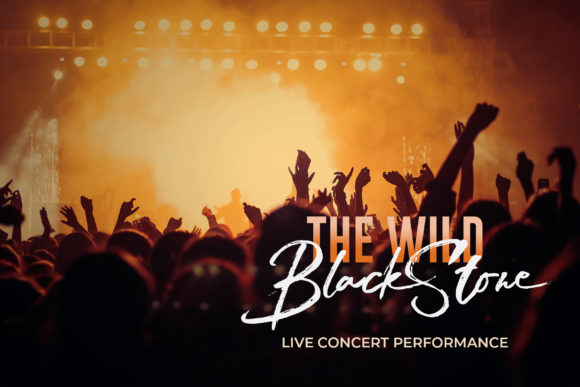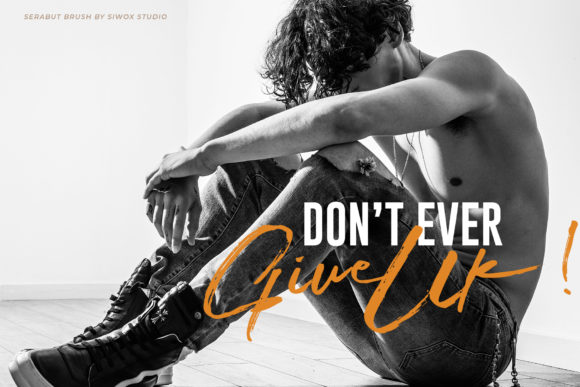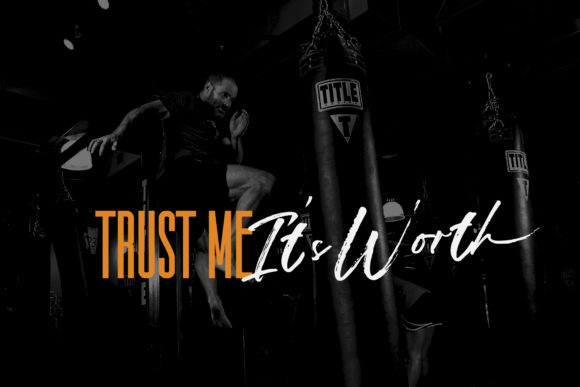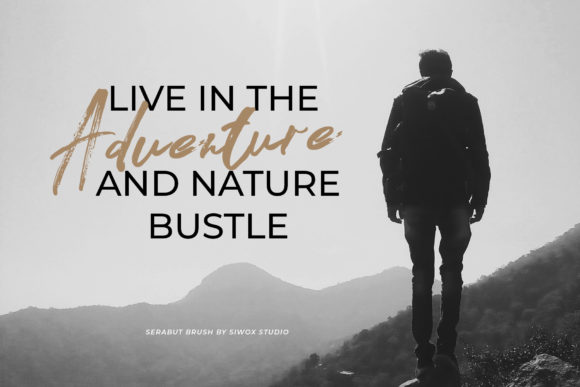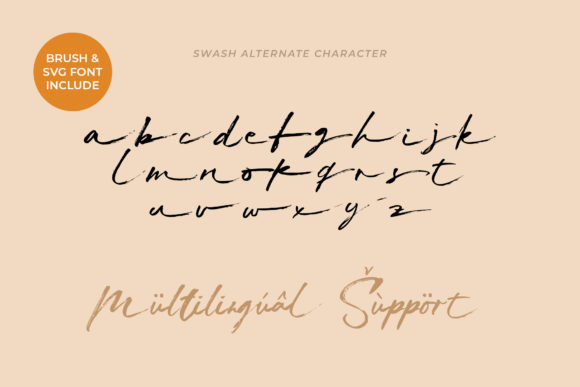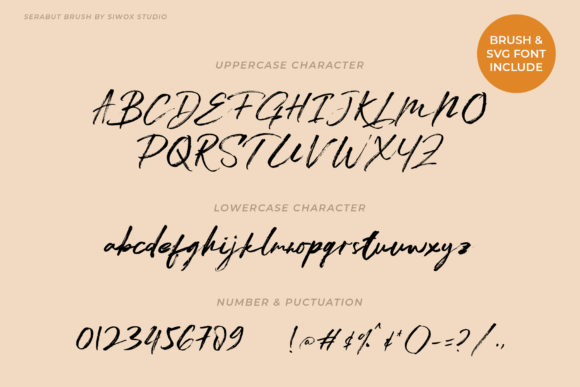
Serabut Font
About Serabut Font
Serabut is a delightful and refreshing brushed handwritten font that exudes a natural and organic charm. Its unique and artistic strokes give it a fresh and contemporary appeal, making it a valuable addition to any font library.
With its versatile style, Serabut complements a wide range of design projects, allowing it to elevate and enhance any creation. Whether used in logos, branding, social media graphics, packaging, posters, or any other design, Serabut brings a touch of authenticity and originality.
The font’s brush-like appearance adds a handcrafted and artisanal feel, making it suitable for designs that aim to convey a sense of warmth and personal touch. Serabut’s natural flow and irregularities give it a dynamic and lively character, allowing it to stand out from more traditional and formal fonts.
Serabut is an excellent choice for projects that seek a more casual and approachable look, as well as those that wish to emphasize a connection to nature and the organic world. It can be used to evoke a sense of relaxation and comfort, making it particularly suitable for products or services related to wellness, natural products, and outdoor activities.
In summary, Serabut is a versatile and captivating brushed handwritten font that adds a touch of freshness and naturalness to any design. Its potential to elevate a wide range of projects, combined with its charming and unique style, makes it a valuable asset to any font library.